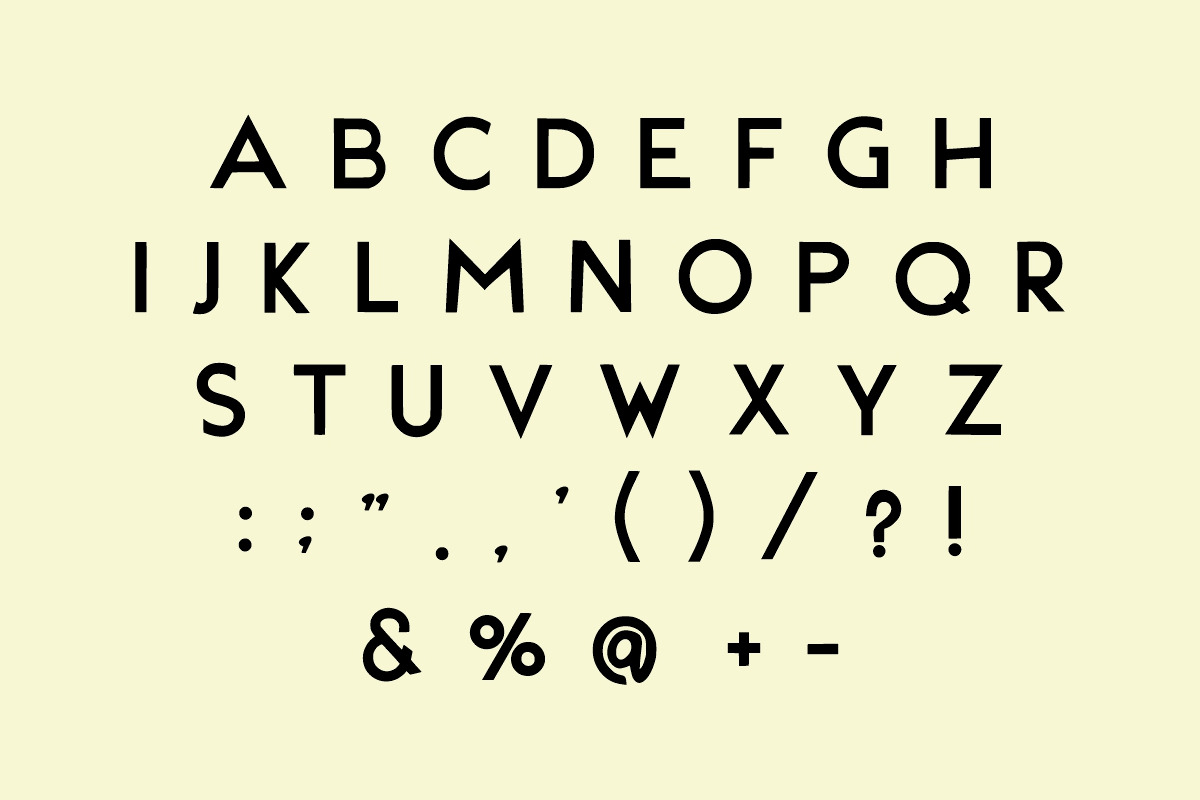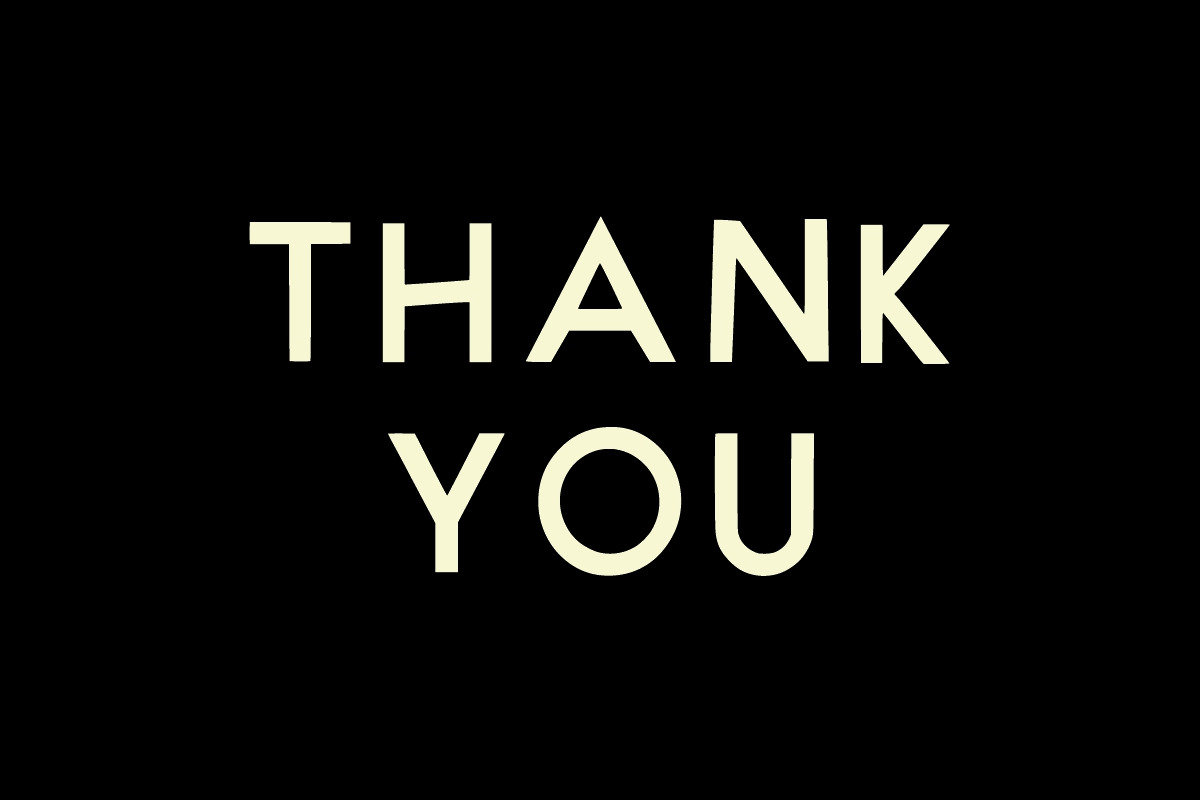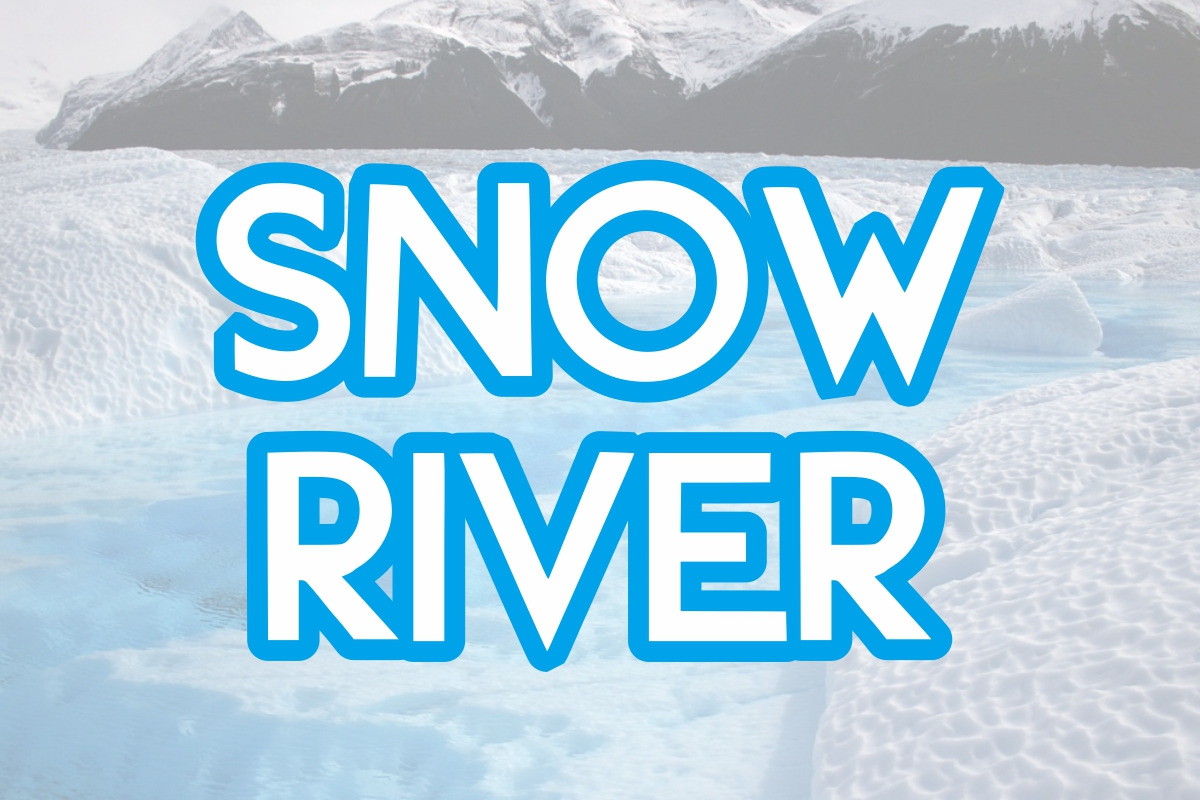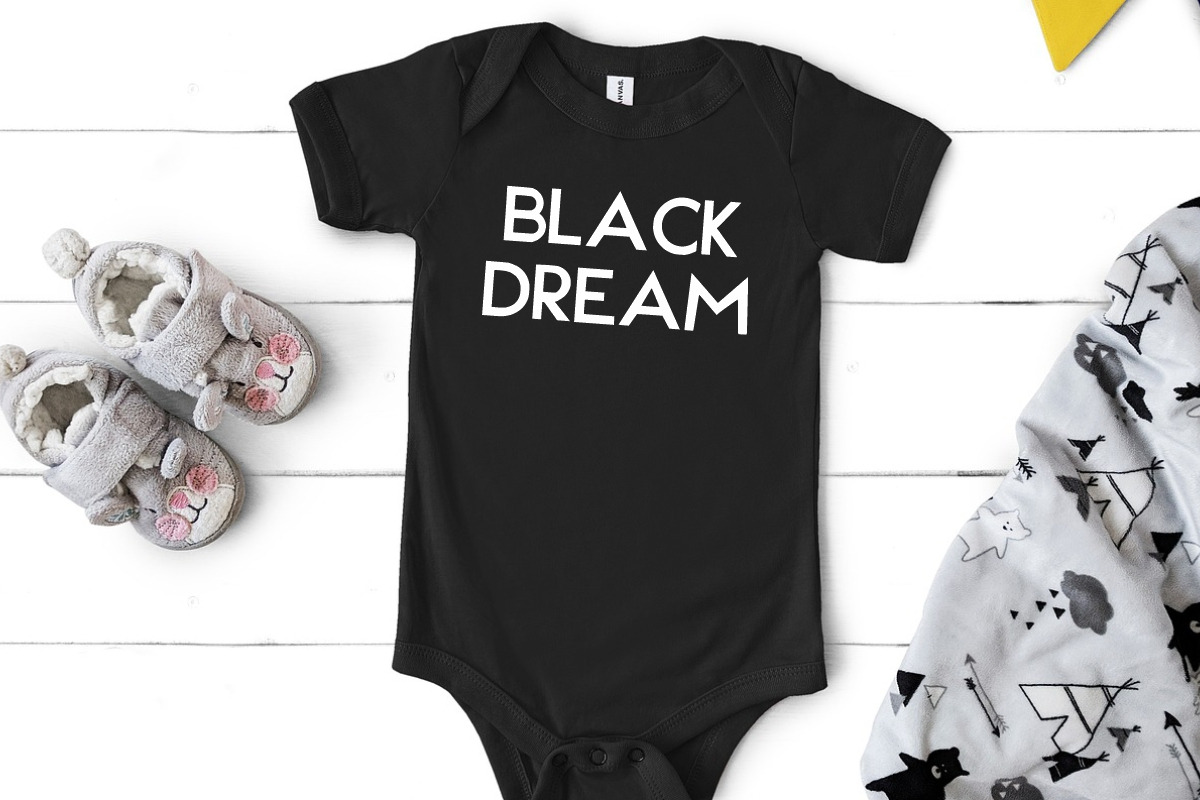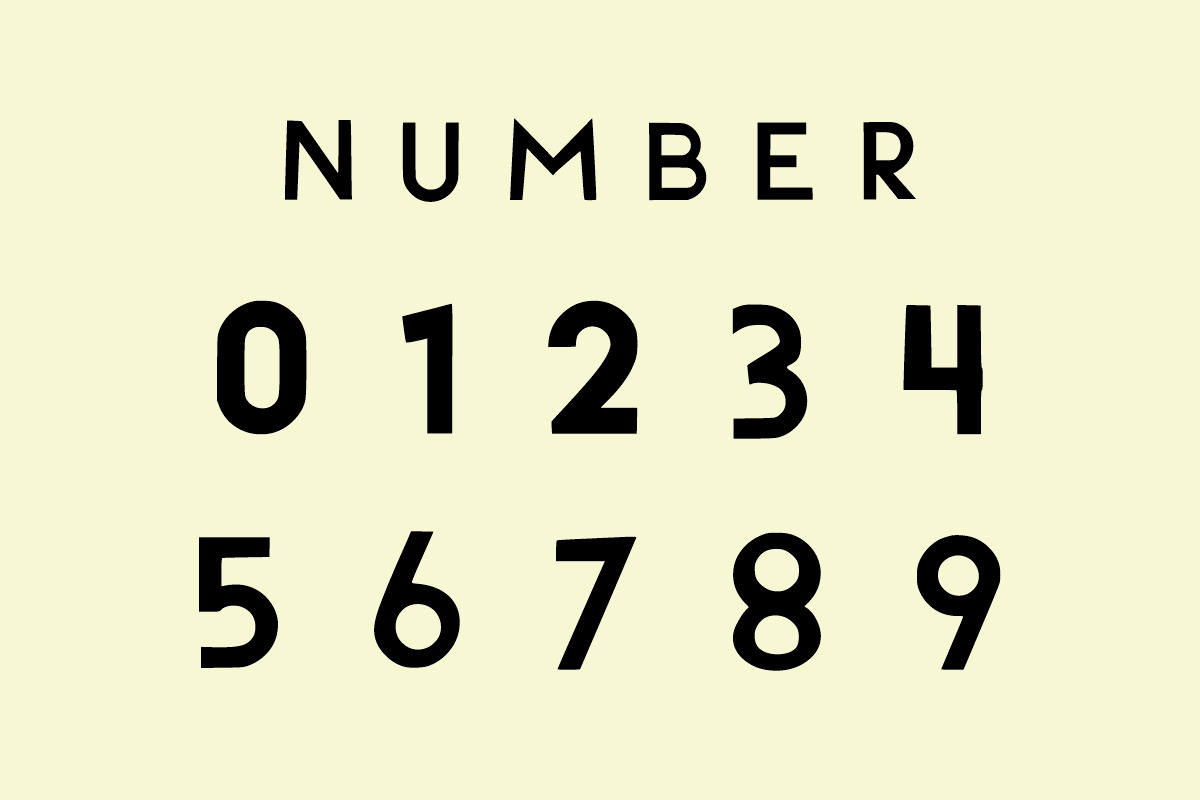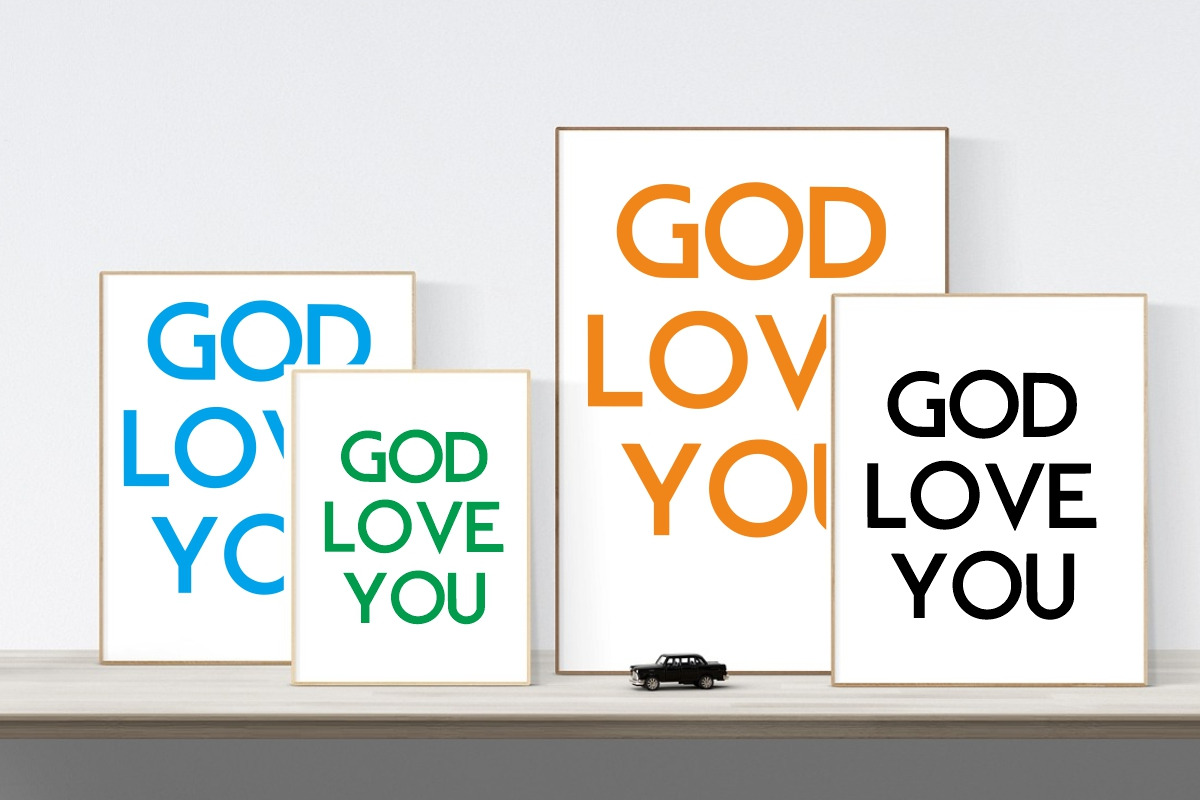
Lemon Mint
Lemon Mint is a cute, simple font. Its informal style and casual vibe will make this font a go-to choice for each of your creations that require a relaxed touch. It is suitable for any product packaging, invitation, quote, t-shirt, label, poster, logo that you wish to develop!